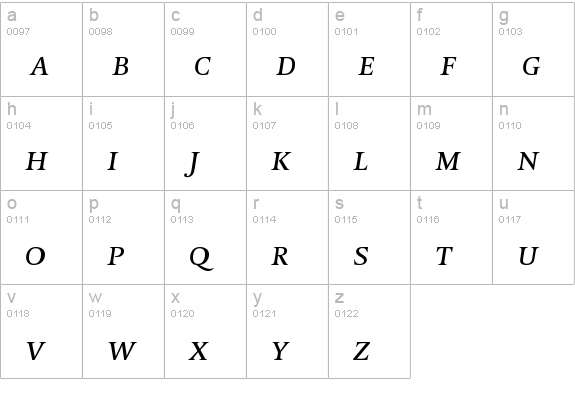
DTLParadoxTCaps-Italic is a distinctive, italic variant in the DTLParadoxTCaps typeface family \xE2\x80\x94 well suited to design and typography projects.
The DTLParadoxTCaps-Italic font is a stunning display typeface that exudes elegance and sophistication. Its unique italic design adds a touch of flair to any project, making it perfect for headlines, logos, and other creative applications. With its delicate curves and sharp angles, this font captures the eye and commands attention. Best of all, the DTLParadoxTCaps-Italic font is available for free download at FontsMarket.com. Whether you're a designer looking to add a touch of class to your work or a creative enthusiast seeking a standout font for personal projects, this font is sure to impress. Don't miss out on the opportunity to enhance your designs with this exquisite typeface – download it today and let your creativity soar!